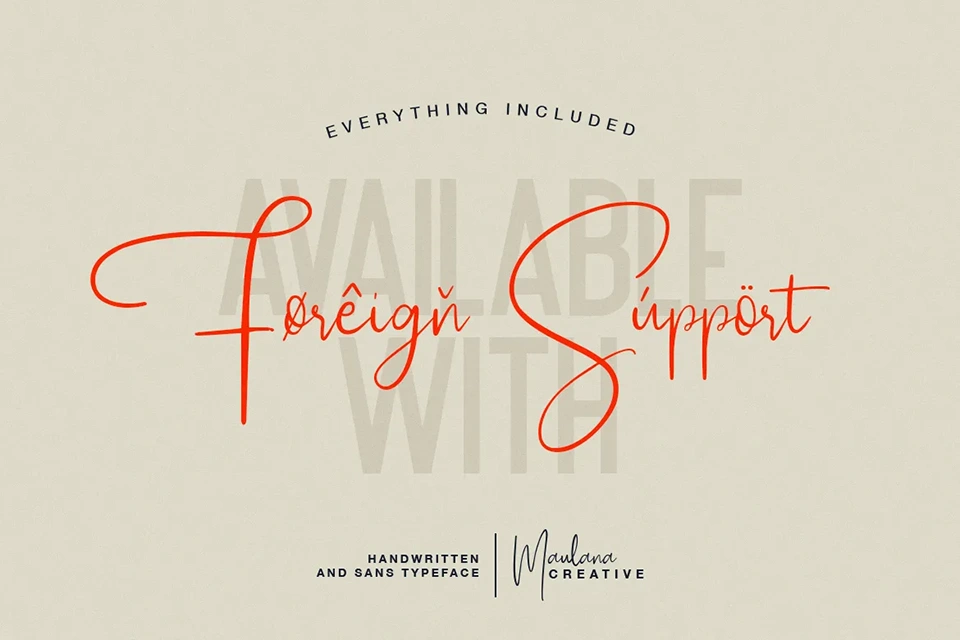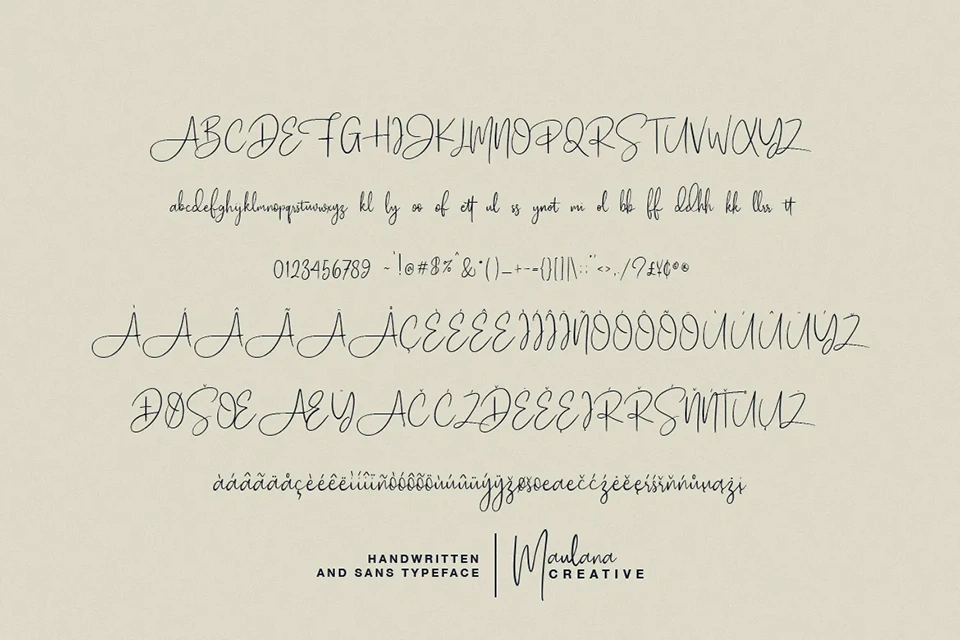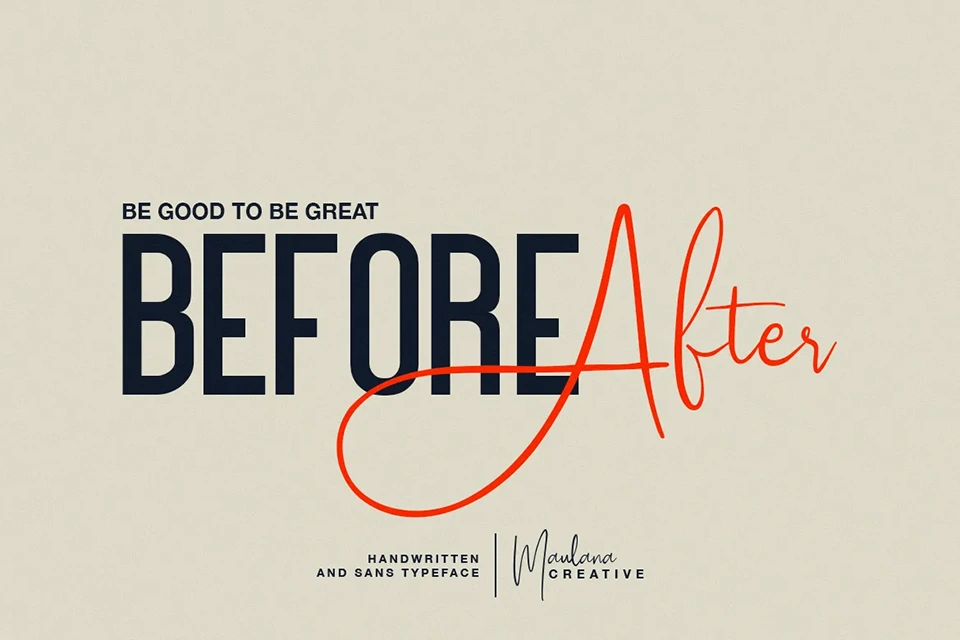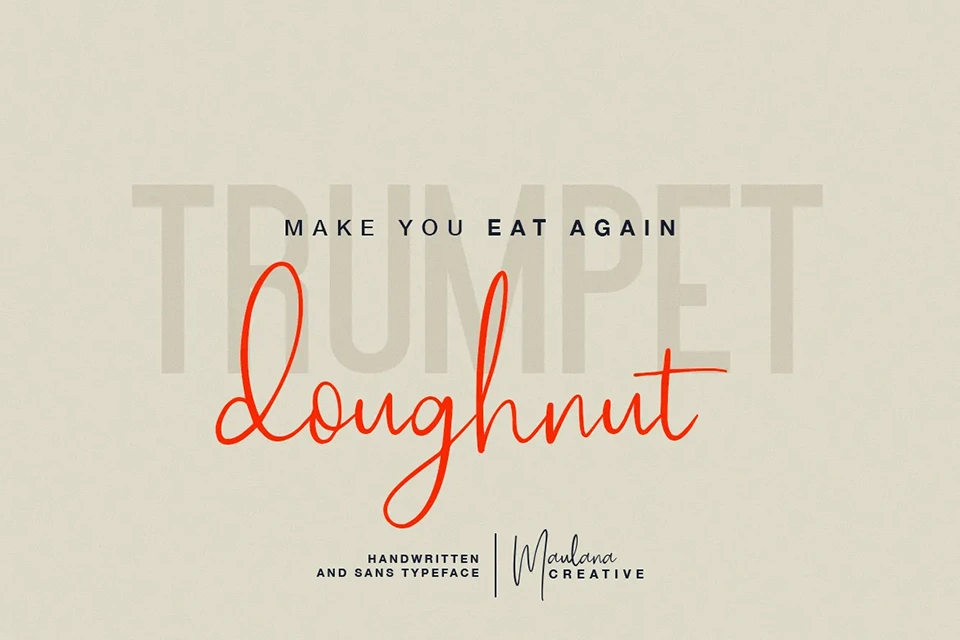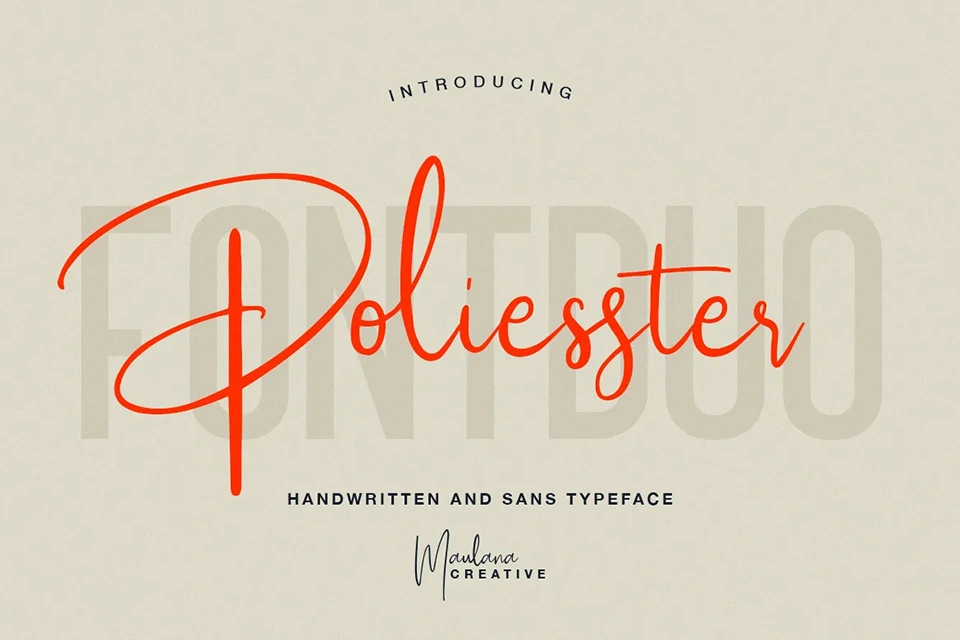
Poliesster Font
Infuse your designs with an authentic, handcrafted feel using “Poliesster font.” This versatile font is ideal for signatures, stationery, logos, typography quotes, magazine or book covers, website headers, clothing, branding, packaging design, and more.